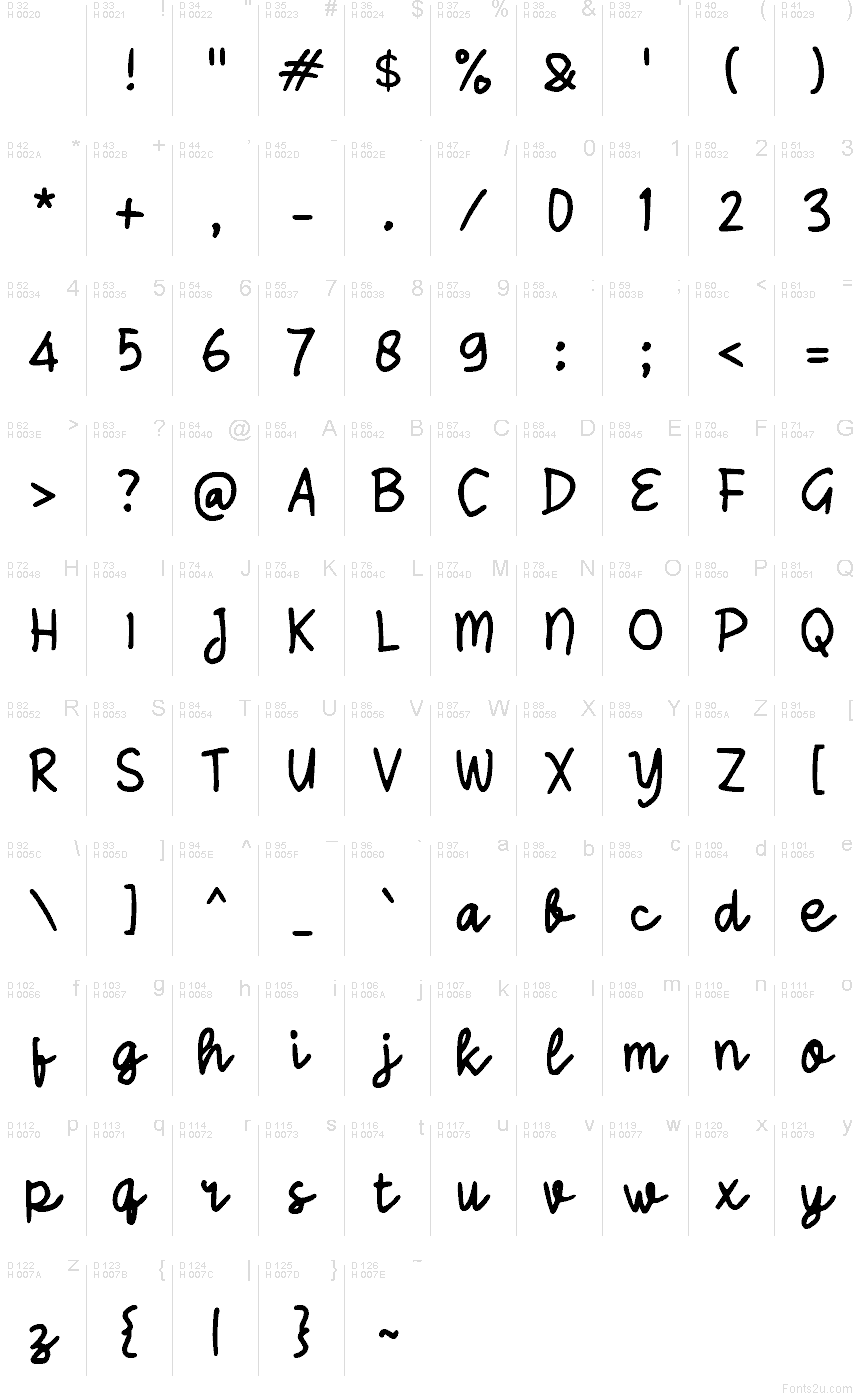
Sabia Road
Sabia Road font by wepfont.com is a free handwritten typeface that feels like a quick note scribbled with a smooth gel pen. Its rounded, slightly bouncy letters keep a steady rhythm, so even at larger sizes it stays friendly and legible rather than messy. The connected strokes have an easy flow that suggests movement and personality without tipping into drama or fake “brush” texture.
Using Sabia Road font, you can bring a warm, conversational tone to social media graphics, product packaging, quote posts, greeting cards, casual logos, and blog banners. This free font shines when you want copy to feel personal but still clean and professional. Pair it with a simple, neutral sans serif for body text, and let Sabia Road handle the headlines and short phrases at medium to large sizes.